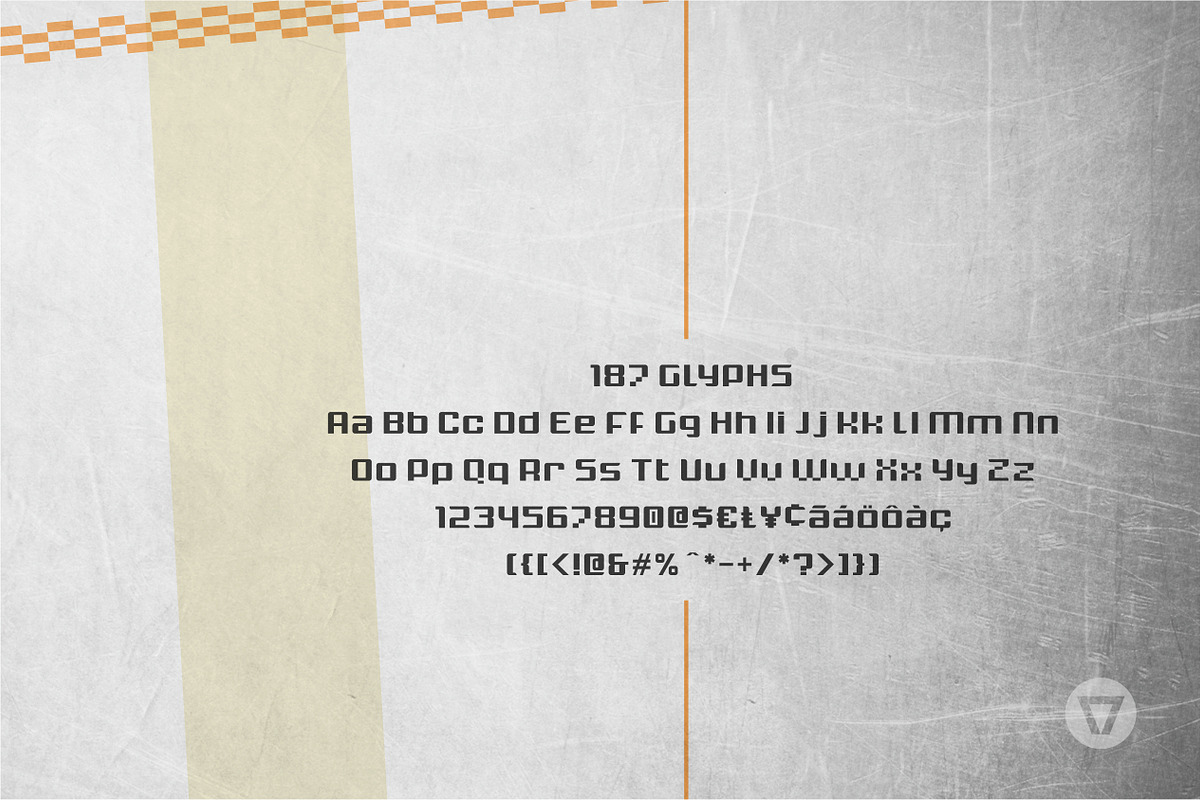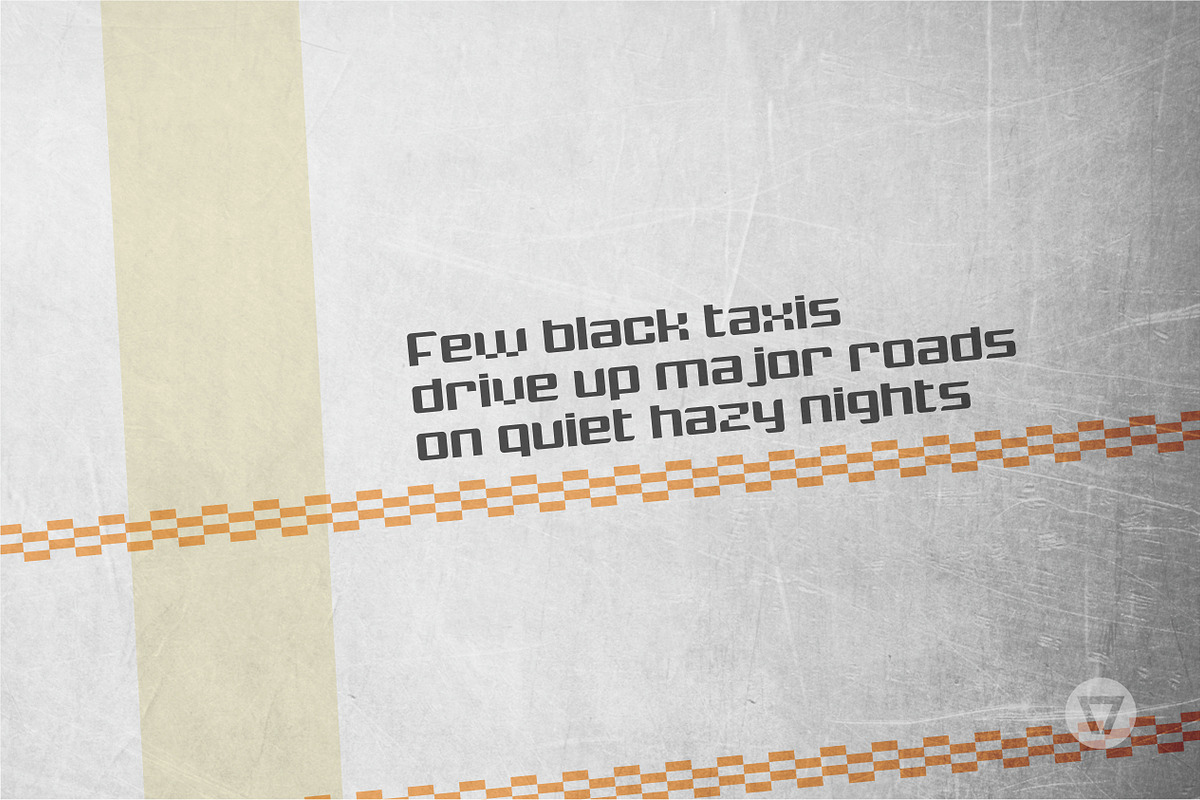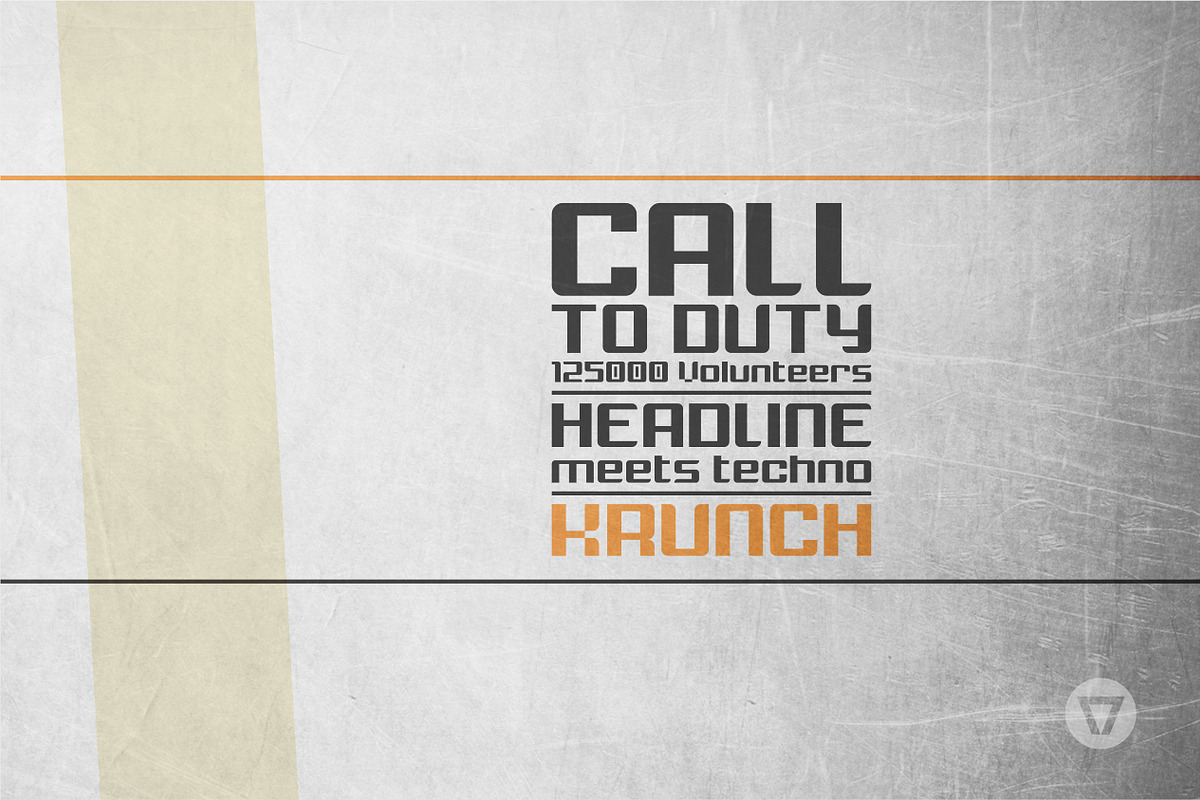
Krunch - Modular techno font
Krunch - Modular techno font by NimaType is a font selected for branding, posters, packaging, typography.
Why Krunch - Modular techno font is worth a look
Krunch - Modular techno font by NimaType fits naturally into Branding, posters, packaging, typography.